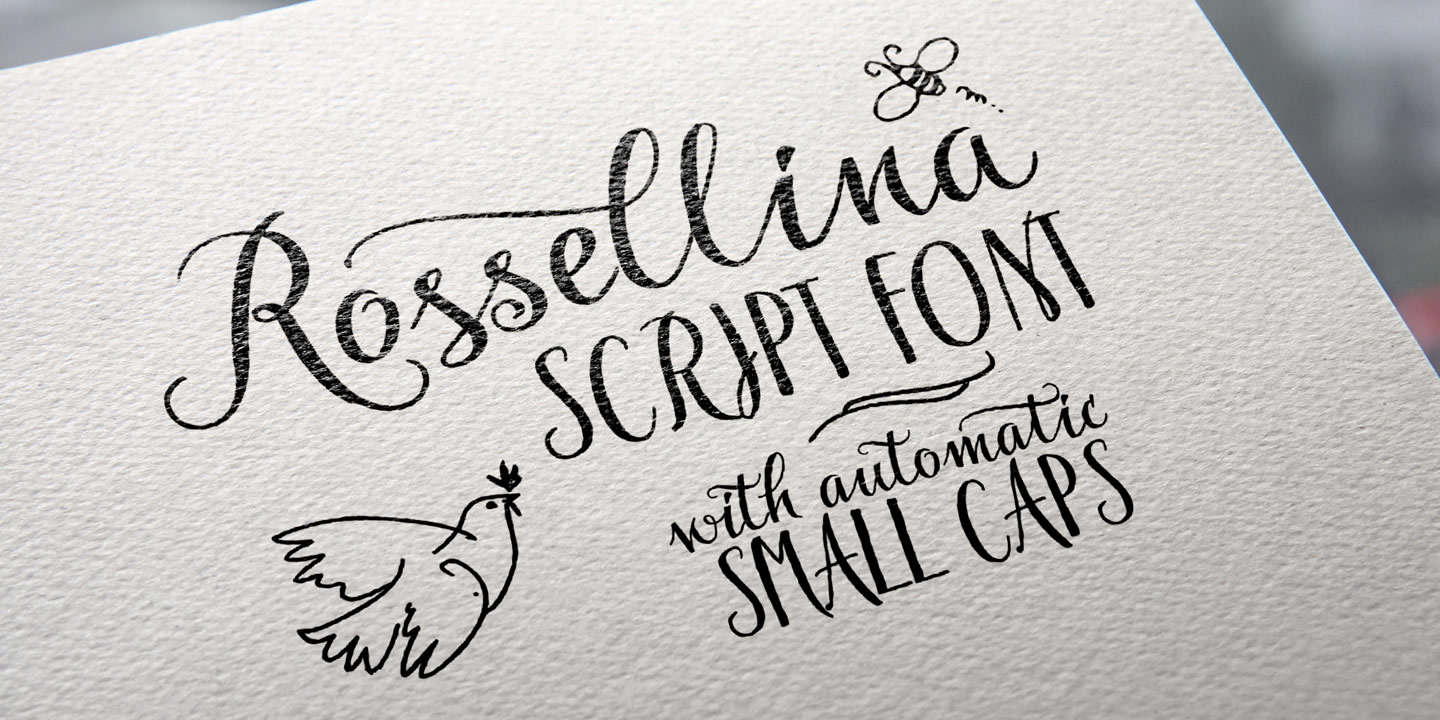
The Rossellina Font excels in various design applications including elegant Italian fashion branding, romantic villa marketing, sophisticated beauty salon communications, luxury Italian boutique materials, elegant wedding planner identities, refined cosmetics promotions, sophisticated jewelry store signage, elegant women's lifestyle documentation, luxury spa packaging, and distinguished feminine projects that demand Italian elegance and sophisticated beauty.
What makes the Rossellina Font exciting is its graceful embodiment of Italian feminine elegance and sophisticated beauty through letterforms that capture the essence of Roman sophistication and the timeless appeal of Italian fashion heritage. This typeface demonstrates exceptional grace through carefully crafted characters that suggest the flowing lines of Italian couture, the refined elegance of Roman architecture, and the sophisticated beauty that makes Italian design so internationally admired and culturally influential. The font's Italian personality makes it perfect for luxury brands and elegant businesses seeking to communicate Italian authenticity, sophisticated femininity, and the kind of Roman elegance that creates memorable luxury experiences through typography that literally flows with Italian grace.
The Rossellina Font family typically includes elegant weight variations that enhance the Italian aesthetic, featuring sophisticated styling options and extended character sets optimized for luxury communications and fashion applications. These family options often include Italian-inspired alternates, elegant symbols, and sophisticated decorative elements that provide designers with comprehensive tools for creating authentically Italian typography that celebrates Roman heritage while maintaining contemporary design appeal and luxury credibility.
Fashion professionals and luxury Italian organizations consistently select Rossellina Font Free Download for projects requiring typography that communicates Italian authenticity and sophisticated elegance. This typeface delivers exceptional performance in luxury marketing, Italian branding, and elegant communications where establishing sophistication and creating refined Italian atmosphere is essential for luxury engagement. The font's Roman character makes it particularly effective for fashion and beauty applications. Download Rossellina Font Free Download today to access this elegantly Italian typeface that transforms luxury communications with its Roman elegance and sophisticated beauty, creating compelling luxury experiences that honor the magnificent grace of Italian design while celebrating the sophisticated femininity that defines authentic Italian culture and Roman excellence.